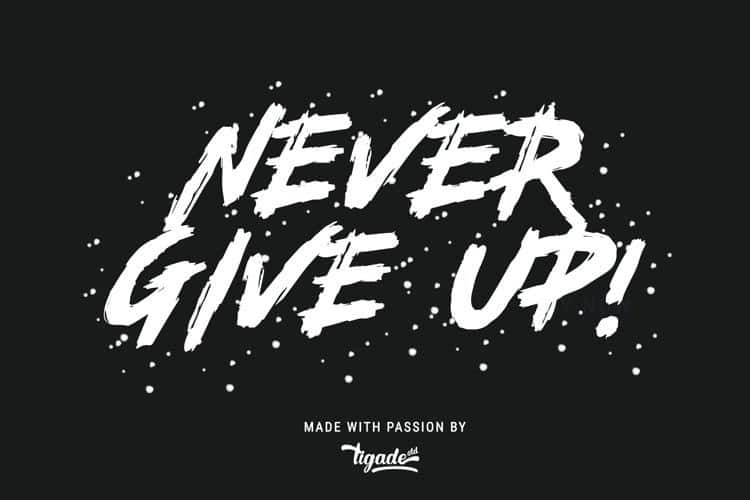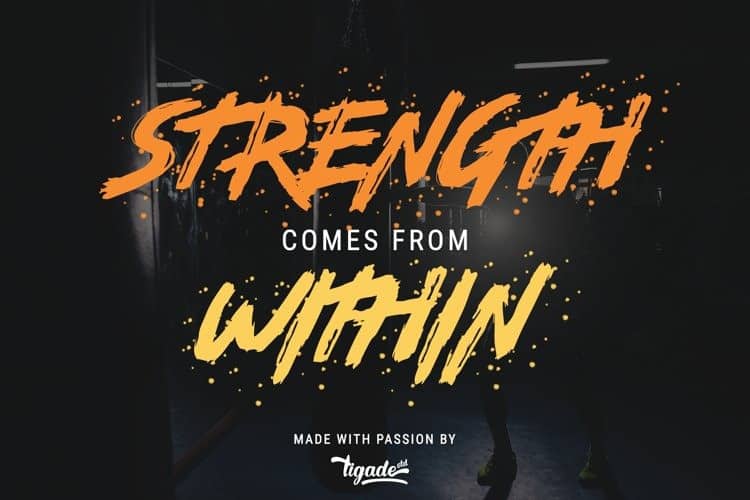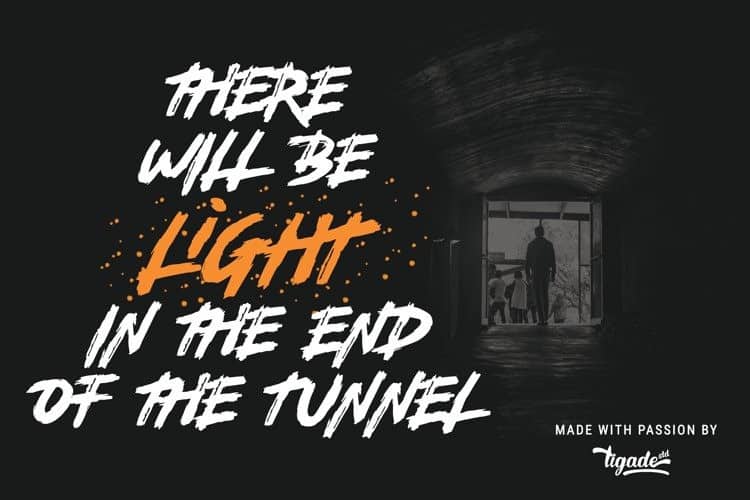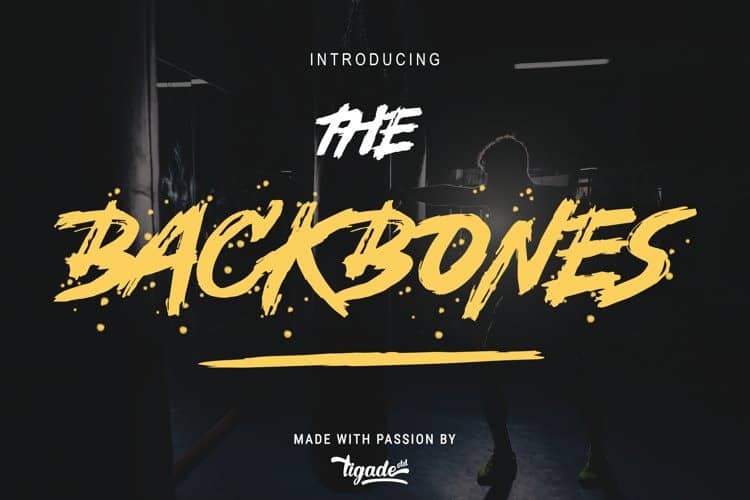
Backbones Brush Font
Backbones Brush Font is a flowing and elegant handwritten font, created with the help of a brush pen. Made from font designer named Tigade Std. A street-wise and sharp brush font showing spirit and energy. With the sharp and strong strokes detail, Backbones is ideal for logos, apparel, quotes, product packaging or anything that need an extraordinary typographic design.